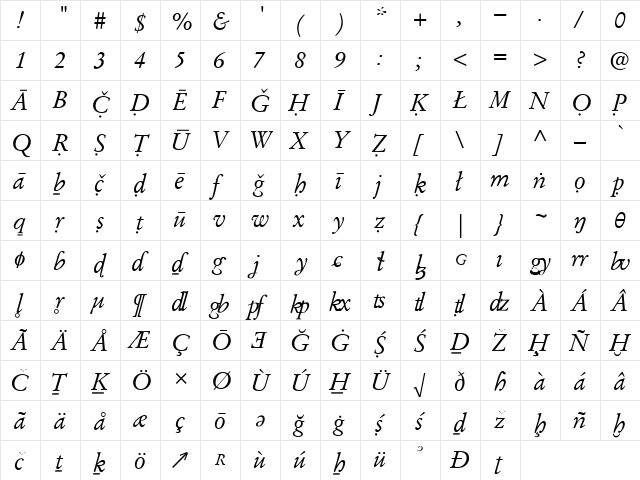
EAE-Garamond Italic Font Preview
EAE-Garamond Italic
Design Context for EAE-Garamond Typeface
EAE-Garamond is a composed and adaptable typeface that performs quietly and consistently across a wide range of design contexts. The dynamic lean of this cut emphasises speed and emphasis in any layout.